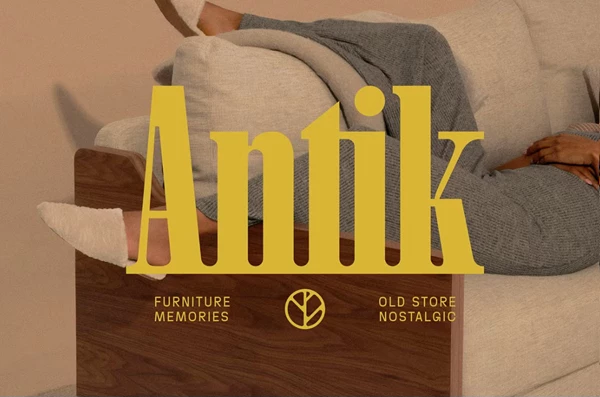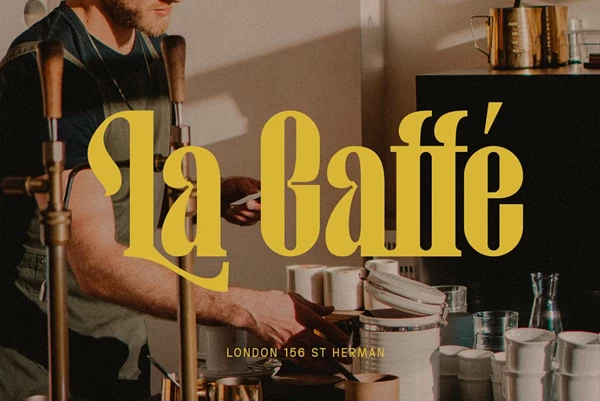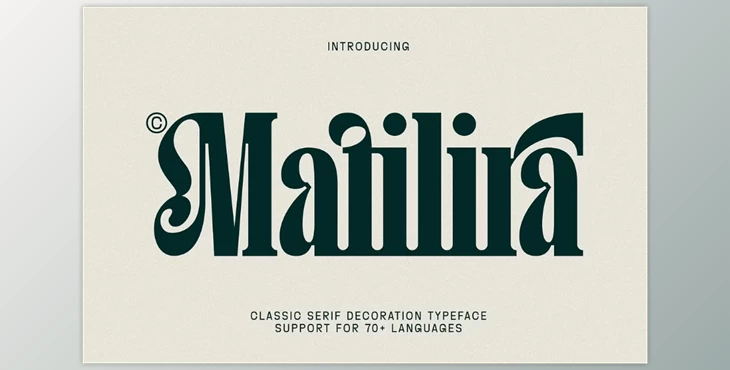
Matilira - Classic Serif Font:
Matilira has a distinct vintage charm stemming from an artistic mix of bold serif strokes. Capture attention with Matilira's playful alternate sets paired with vertical strokes accented robust ligatures. The display type is further enhanced by graceful curves, which exude intricate details, adding timeless sophistication. This is perfect for branding a strong creative narrative. Capture attention in logos while adding dexterity to packaging apparel graphics trailers and editorial headlines. Classic infused modern boldly timeless character allows effortless adaptability alongside contemporary design themes turning nostalg & into versatile tools boundless creativity."
- Includes Alternatives and Ligatures for Characters